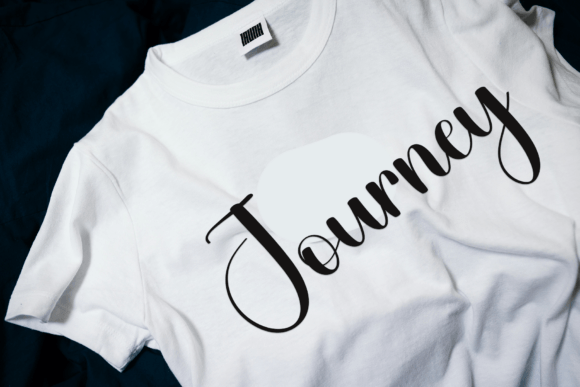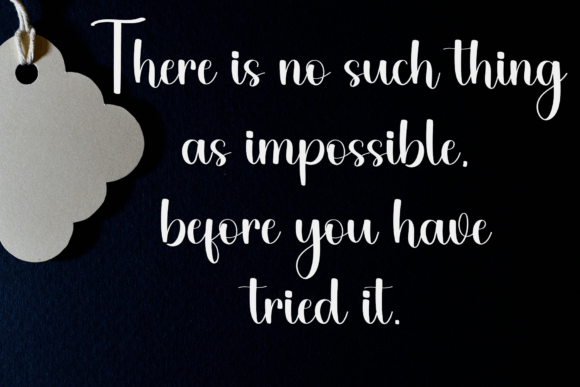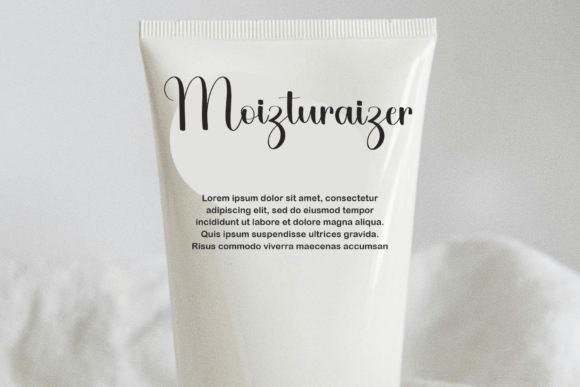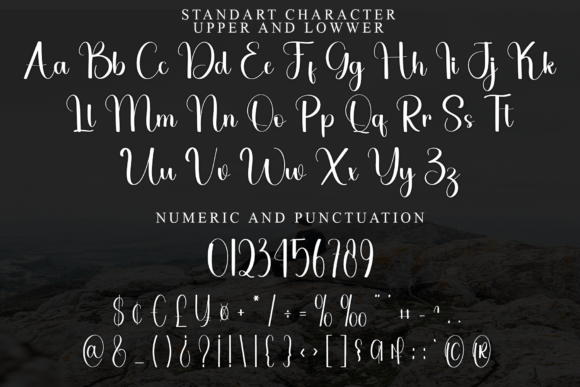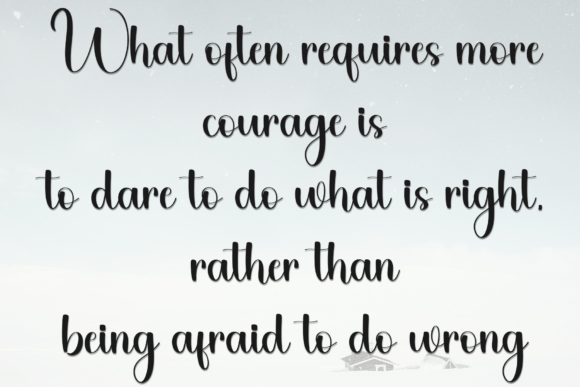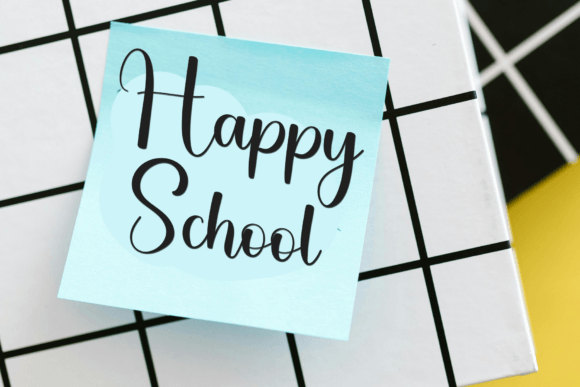
The Grateful Font: A Designer’s New Best Friend
I still remember the frustration of working on a design project, hours spent searching for the perfect font, only to end up with something that just didn’t feel right. My client wanted a unique, eye-catching font that would make their brand stand out, but I was struggling to find something that fit the bill. That’s when I stumbled upon the Grateful font, and let me tell you, it was a game-changer! 💥
So, what makes the Grateful font so special? Here are a few things I love about it:
- ✨ Unique and eye-catching: The Grateful font has a soft, distinctive touch that sets it apart from more traditional fonts.
- ✅ Versatile: With various characters and a natural font style, it’s perfect for a wide range of design projects, from crafts to creative works.
Of course, no font is perfect, and there are a few small quirks to be aware of:
- 🤔 Limited kerning options: Some users may find that the kerning options are a bit limited, which can make it tricky to get the perfect spacing.
- ⚠️ Not suitable for body text: The Grateful font is best used for headings or titles, as it can be a bit too ornate for body text.
The Story Behind the Grateful Font
The Grateful font was designed with the intention of creating a unique, eye-catching font that would be perfect for creative projects. The designer wanted to create a font that would stand out from the crowd, with a soft, distinctive touch that would make it perfect for titles, headings, and other creative works.
| What is the Grateful font? | The Grateful font is a beautiful, eye-catching font designed with a soft, unique touch. |
| Is the Grateful font suitable for body text? | No, the Grateful font is best used for headings or titles, as it can be a bit too ornate for body text. |